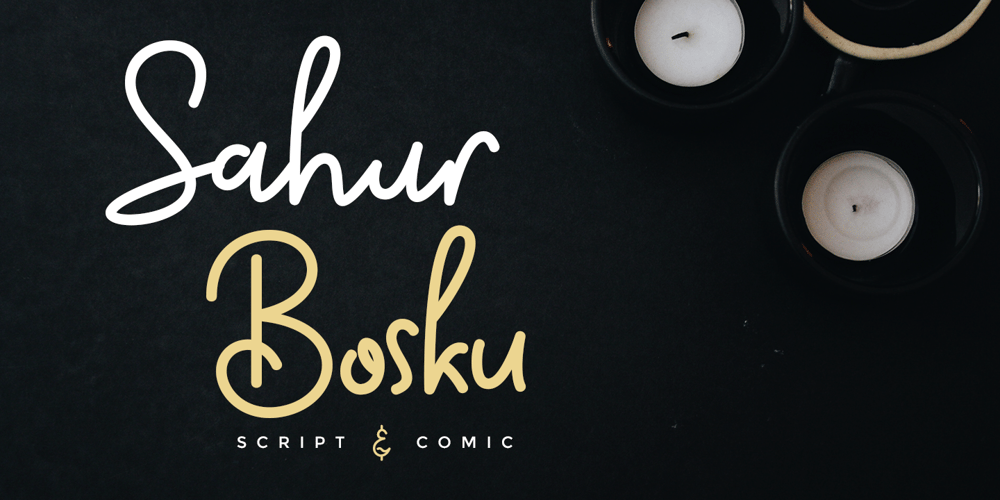
Sahur Bosku Font Family was designed by Muhammad Khoirul Amal and published by CBRTEXT Studio. Sahur Bosku contains 4 styles and family package options. Sahur Bosku is a beautiful handwritten font. This family consists of a script and comic style with matching italics. This font is suitable for branding, quotes, logos, magazines, posters, promotional advertisements, films, and more. The fonts have multilingual support and are PUA Unicoded.